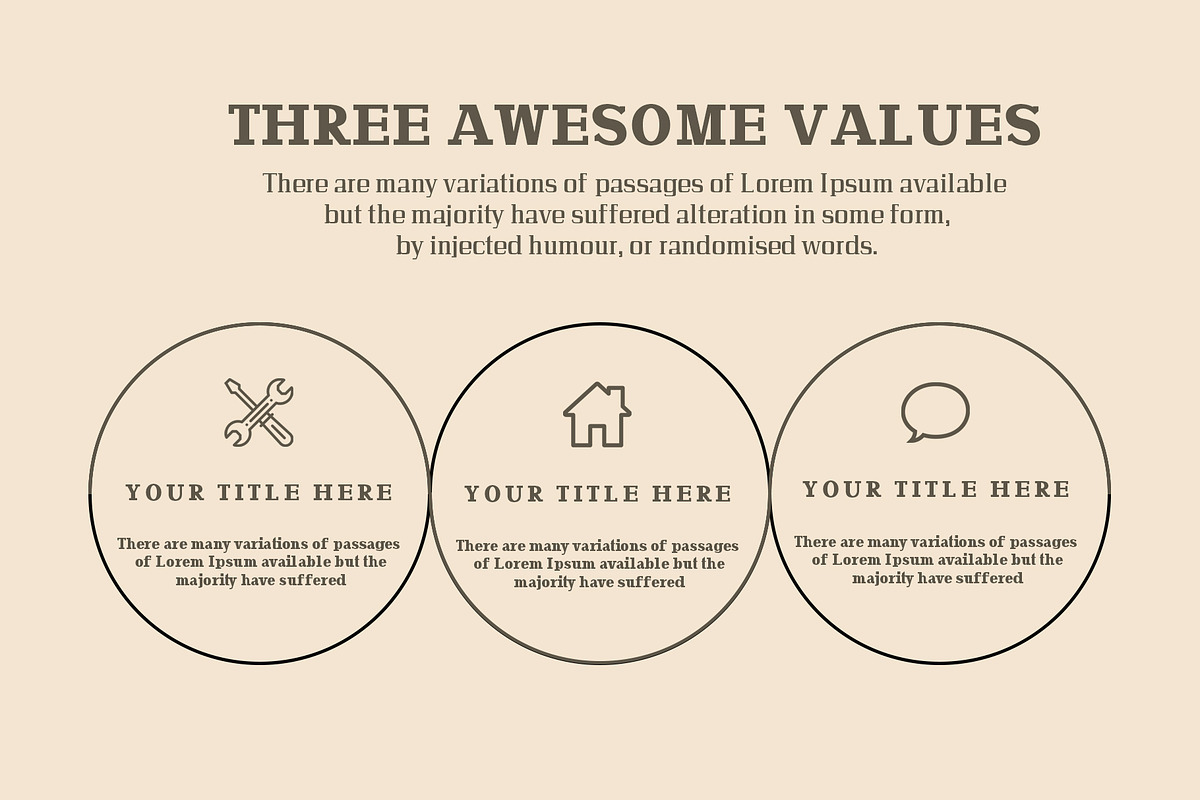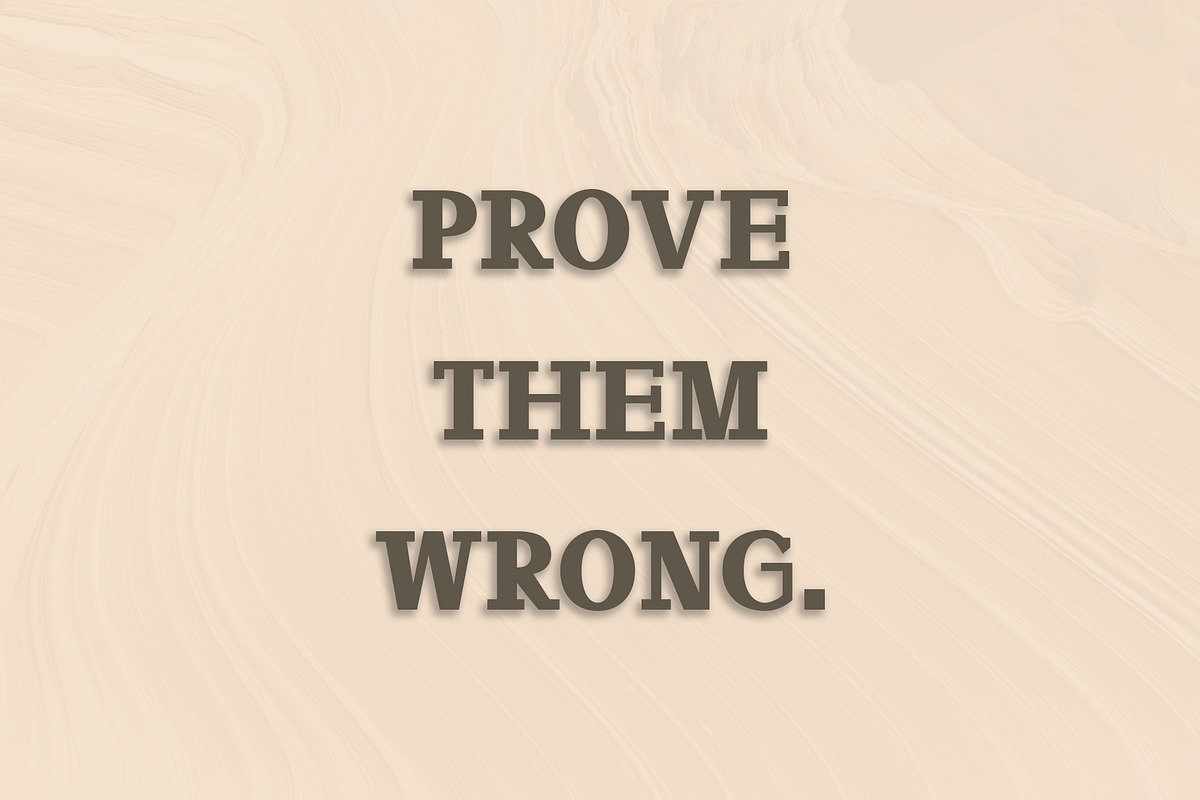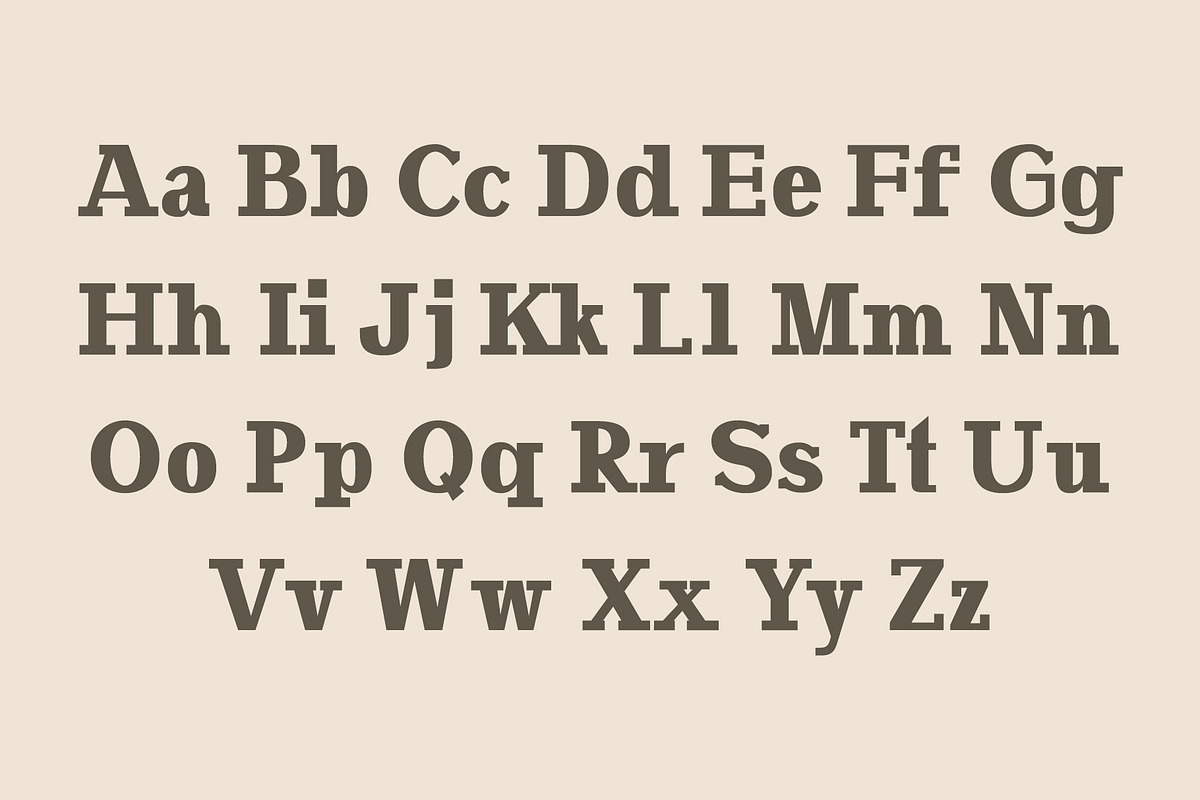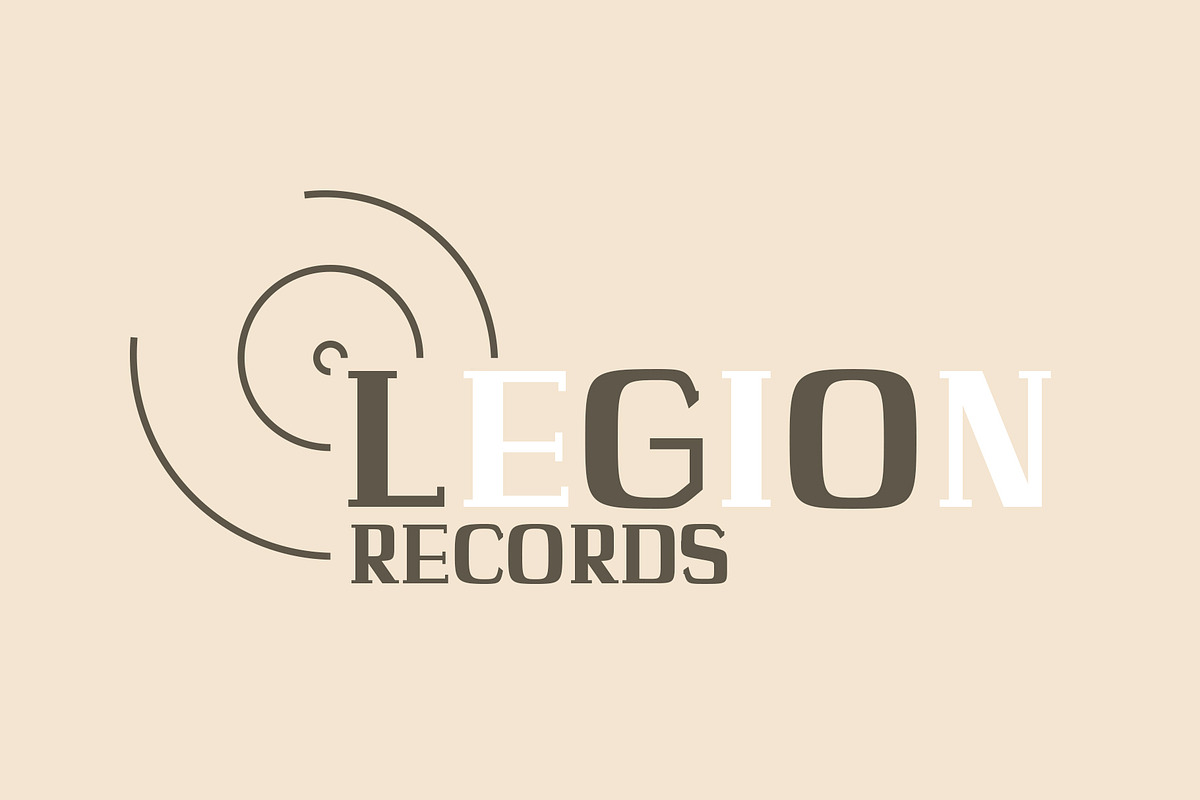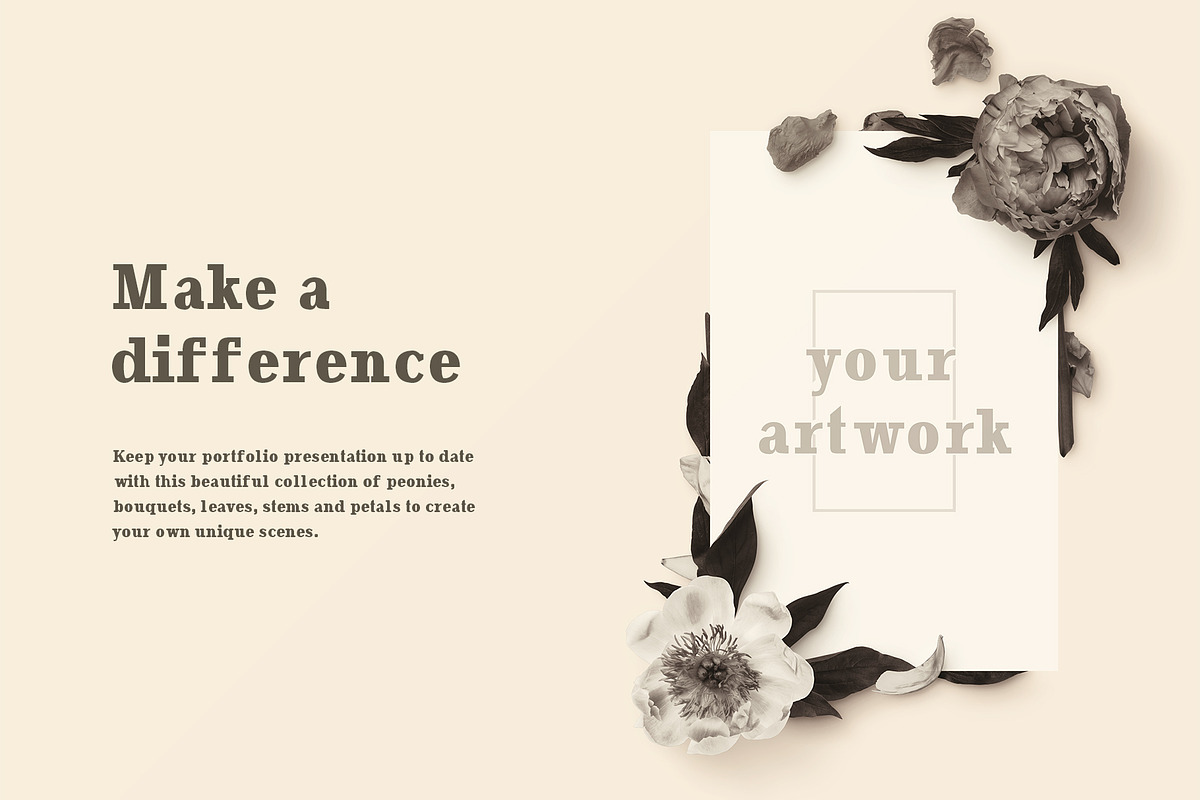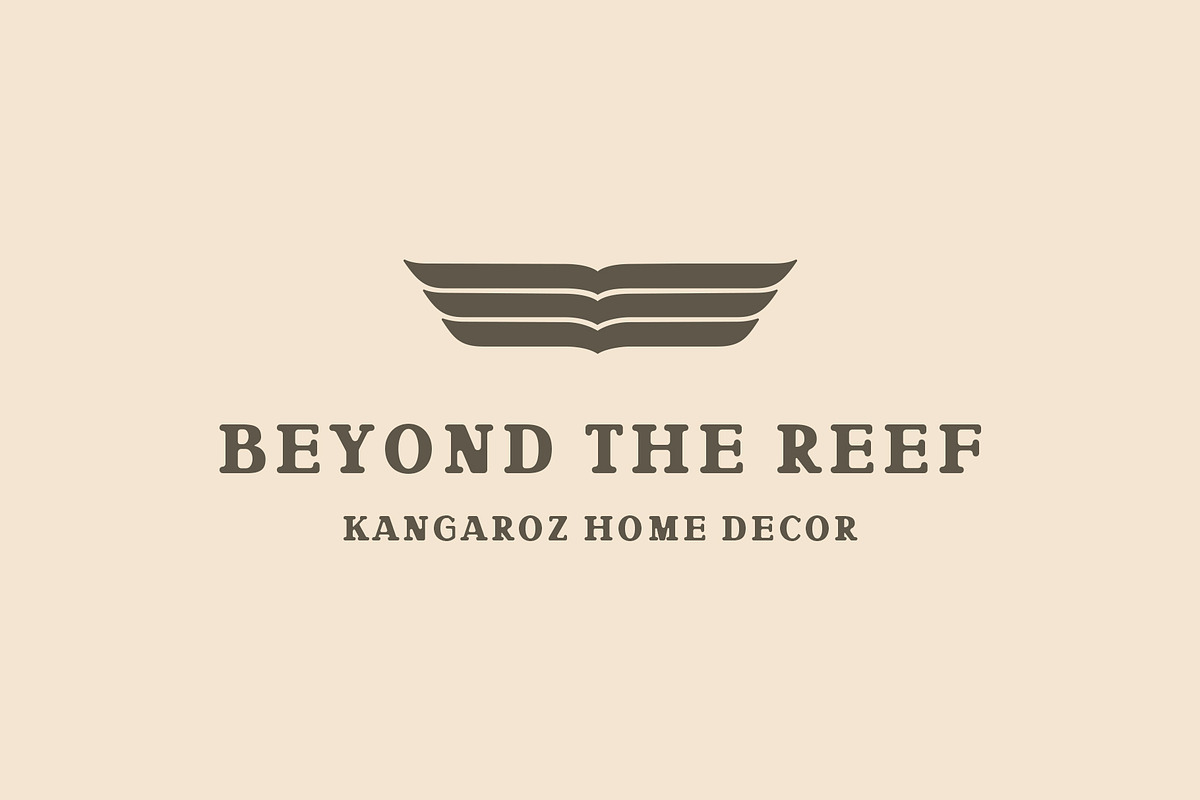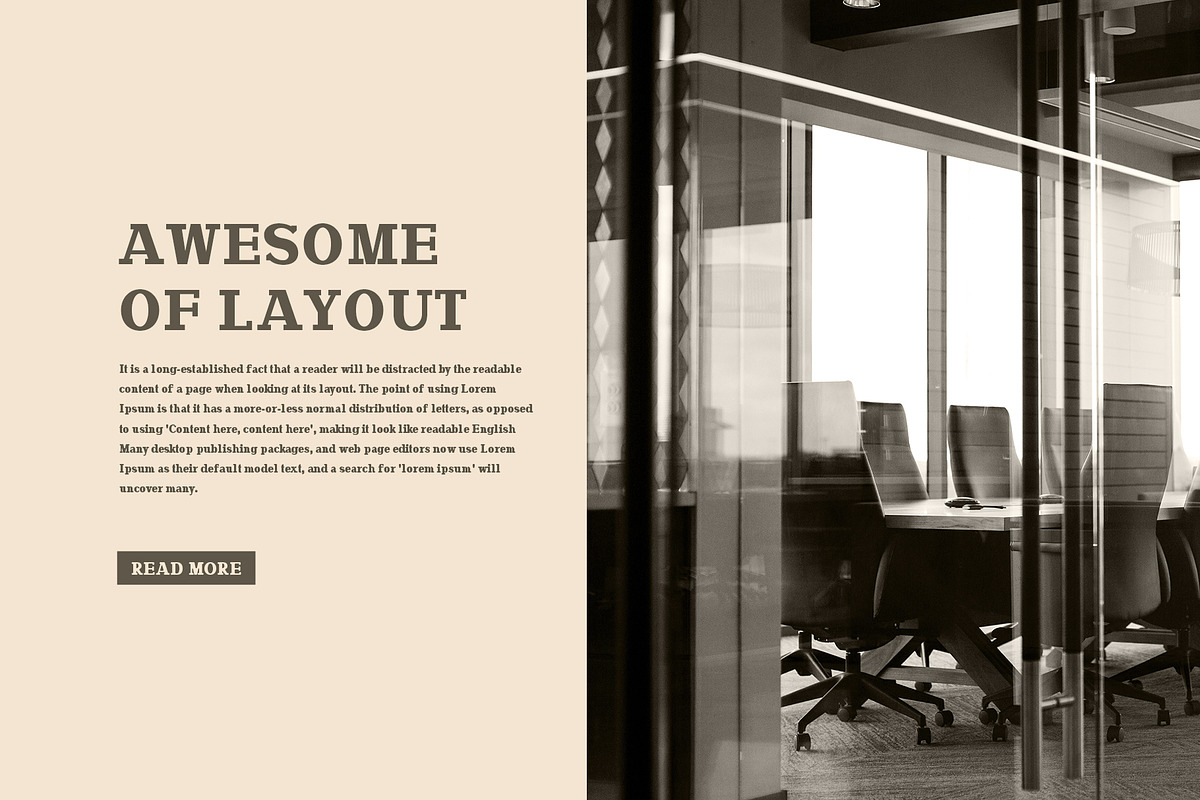
Adena Slab Serif Font Family
Adena is a modern and innovative round slab serif typeface that will make your design fresh and unique. It includes uppercase, lowercase, number, punctuation, symbols, with non-english characters. Adena makes it perfect for posters, greeting cards, stationery design, magazine layouts, stickers and stencil design, prints, logotypes, branding, name card, stationary, design title, blog header, quotes, typography, headlines, packaging, presentations, titles, magazines, headings, web layouts, advertising, invitations, packaging design, books, and nearly any creative design.
Font Weight: Regular and Round
Numbers and Punctuation
- It includes uppercase, lowercase, number, punctuation, symbols, with non-english characters.
- Font Weight: Regular and Round
- Adena Font Features:
- Uppercase Multilingual Letters
- Lowercase Multilingual Letters
- Numbers and Punctuation
- Non English Characters ( Latin Supplement + Latin Extended A)
- Adena Regular
- Adena Round